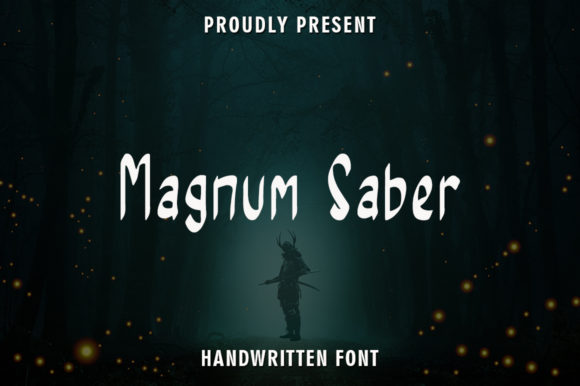
**Magnum Saber: The Font That Will Ignite Your Designs**
Prepare to be captivated by Magnum Saber, a script font that oozes charm and authenticity. This enchanting creation from rangkaiaksara is not just another font; it's an artistic masterpiece waiting to unleash your creative potential.
**A Handwritten Haven**
Magnum Saber's essence lies in its handwritten strokes, each meticulously crafted to evoke a sense of genuine connection. Its natural imperfections and variations mimic the beauty of hand-lettering, adding an organic touch to your digital creations.
**A Versatile Visionary**
The versatility of Magnum Saber knows no bounds. Whether you're crafting social media graphics that demand attention, designing website headers that captivate, or creating eye-catching logos that leave a lasting impression, this font has got you covered. Its adaptability extends to a vast array of projects, making it an indispensable tool for any designer's arsenal.
**Flat Design's Perfect Partner**
For those seeking the perfect complement to their flat design endeavors, Magnum Saber stands tall. Its clean lines and minimalist aesthetic harmonize effortlessly with the sleek simplicity of modern design, creating compositions that are both stylish and impactful.
**A Creative Canvas**
Magnum Saber is more than just a font; it's an invitation to let your imagination soar. Its unique character breathes life into personal branding, bringing a touch of handwritten charm to your projects. Whether you're creating a personal logo or designing a website, this font will help you forge a distinct and unforgettable identity.
**A Font That Speaks to Your Heart**
Magnum Saber possesses a captivating quality that resonates with audiences on a deeper level. Its friendly and approachable nature makes it the ideal choice for projects that aim to connect with customers on an emotional level. From heartwarming invitations to heartfelt messages, this font has the power to evoke feelings and create lasting connections.